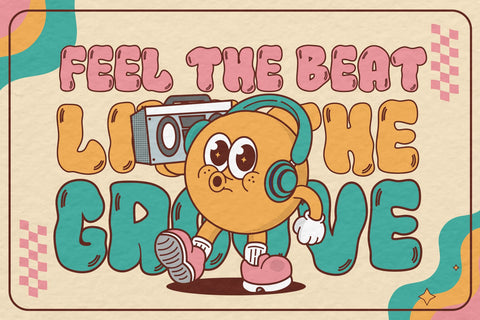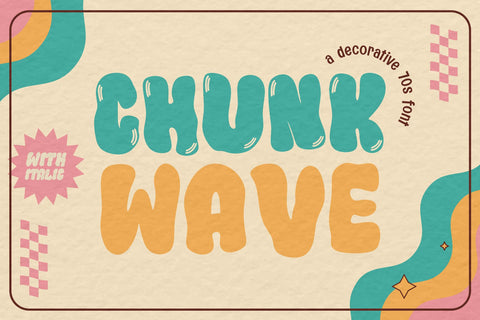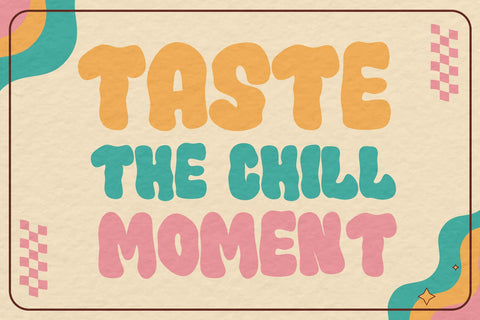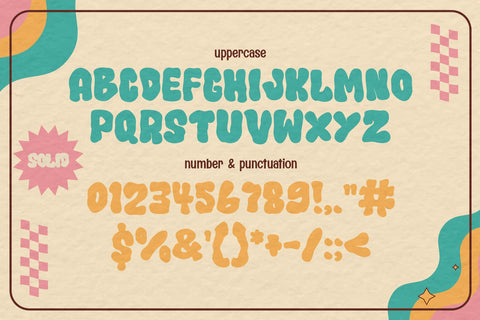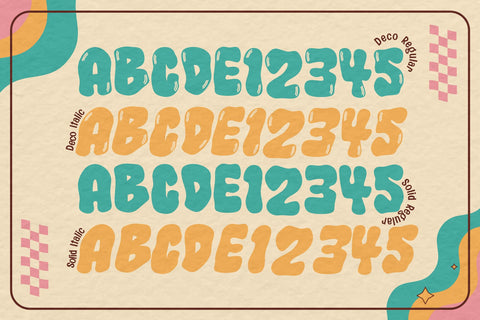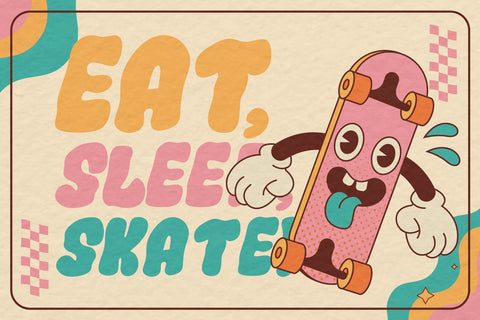
Chunk Wave - a Decorative Groovy 70s font
Chunk Wave is a groovy 70s display font that brings a retro and funky vibe to your designs. With four distinct styles—solid/clean (regular and italic) and decorative (regular and italic)—this font combines bold, chunky letterforms with subtle wave-like curves, creating a playful yet stylish aesthetic.
- Clean and Decorative Font